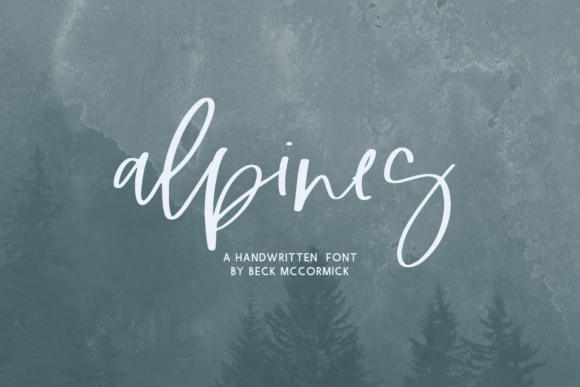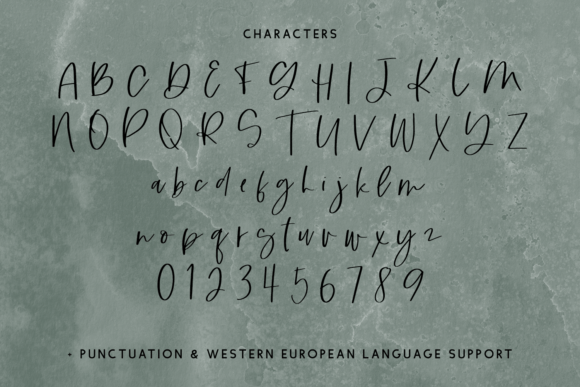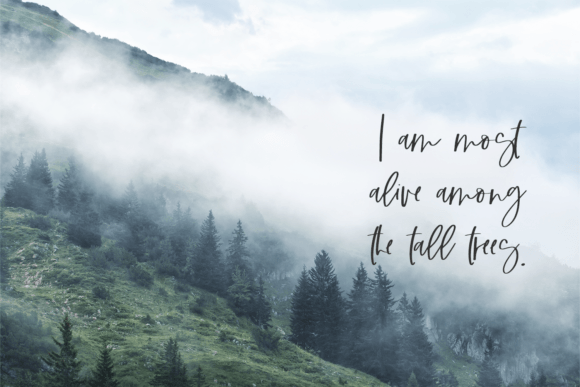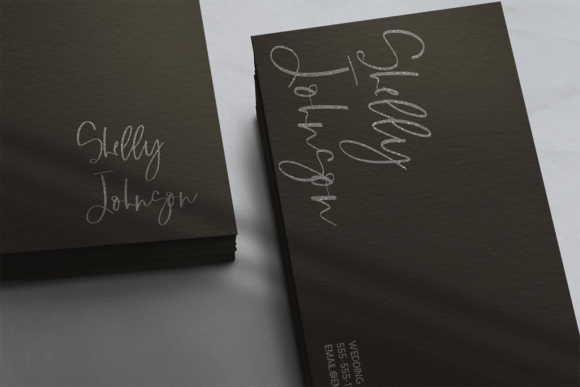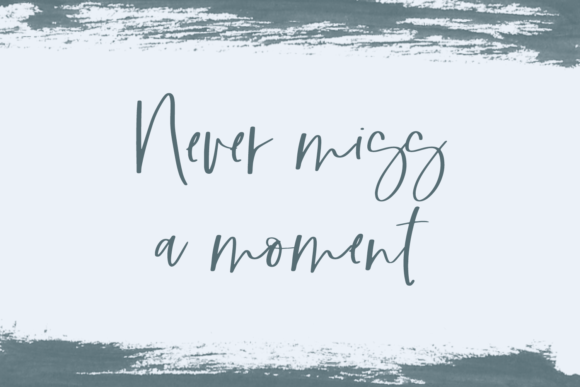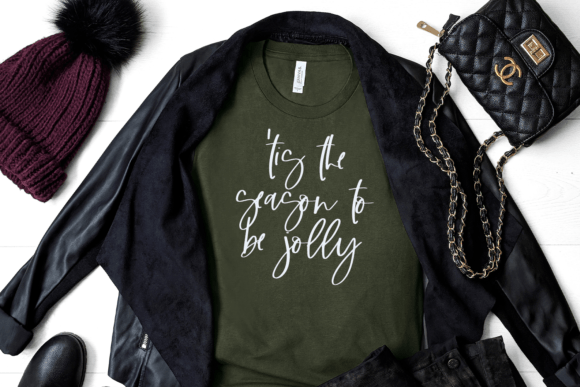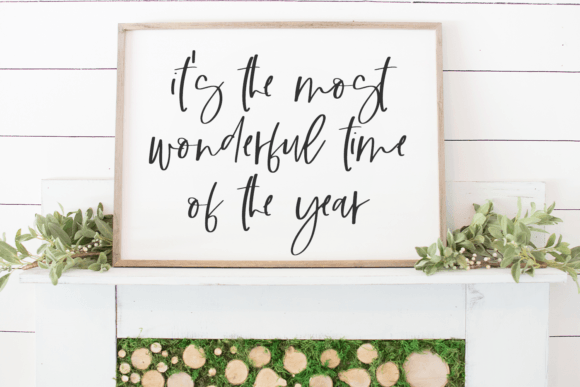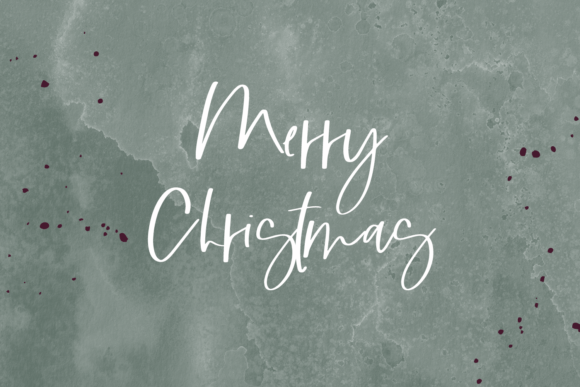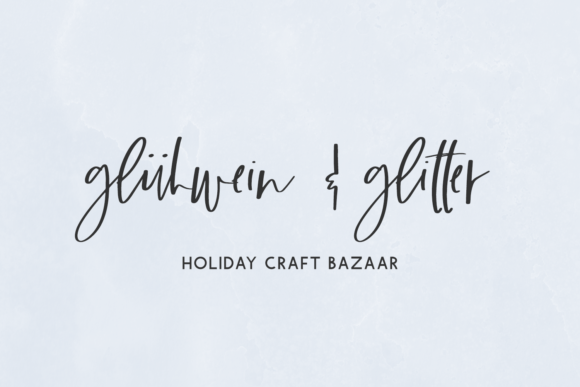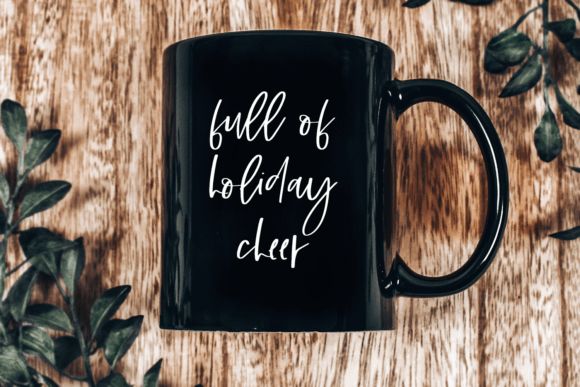
Alpines Font
About Alpines Font
Alpines font is a messy handwritten script that adds a unique, organic flair to any design. Its signature-style aesthetic makes it a fantastic choice for projects that demand a personal and authentic handwritten feel. Whether you’re working on branding, invitations, or creative artwork, Alpines font stands out with its casual yet expressive style.
Organic Handwritten Style
The Alpines font features flowing, uneven strokes that mimic natural handwriting. Its messy yet stylish look creates an approachable and artistic vibe. This font offers a refreshing alternative to polished scripts, giving your projects an authentic, handcrafted personality.
Perfect for Personal and Creative Projects
Use Alpines font to enhance invitations, greeting cards, and personal notes with a distinctive handwritten touch. Its organic texture adds warmth and individuality, making every message feel genuine and heartfelt. It’s also excellent for scrapbooking, journaling, and DIY craft projects where a natural handwriting style is desired.
Great for Branding and Logo Design
For brands that want to convey creativity and authenticity, Alpines font delivers a unique signature style. It works beautifully in logos, product packaging, and marketing materials that seek to connect with audiences on a personal level. The messy script style adds an artistic flair, helping your brand stand out with character and charm.
Versatile for Multiple Design Uses
Beyond personal and branding projects, Alpinesfont adapts well to social media graphics, posters, and digital art. Its playful yet organic appearance ensures readability while maintaining a distinctive handcrafted look. It suits any design that benefits from a touch of casual elegance and personality.
Why Choose Alpines Font?
Alpinesfont offers an appealing blend of messy, organic handwriting and modern script design. Its signature-style aesthetic captures the essence of natural writing, making it an excellent tool for designers who want to add a unique, personal touch to their work. Whether for personal crafts or professional branding, Alpinesfont brings creativity and warmth to every project.